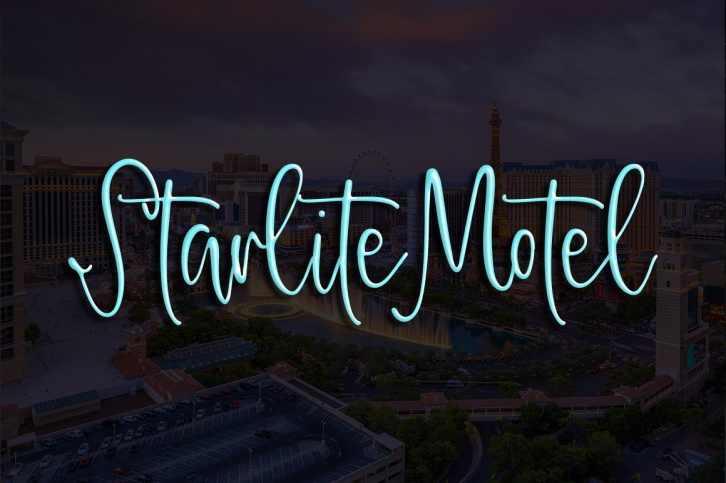
Say hello to my newest font Starlite Motel! Fancy and quirky all at once. This script is PERFECT for wooden signs, inspirational quotes, wine glass designs and SO MUCH MORE! Includes upper, lower, accents, numbers, and punctuation.